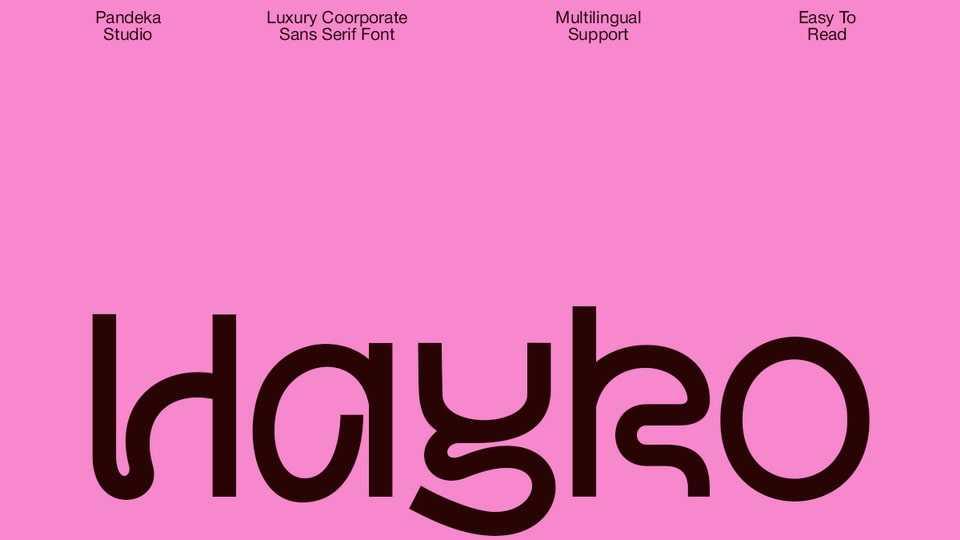
Download Hayko font, a unique and bold display typeface that blends corporate precision with experimental creativity with its distinctive curves, playful shapes, and modern construction.